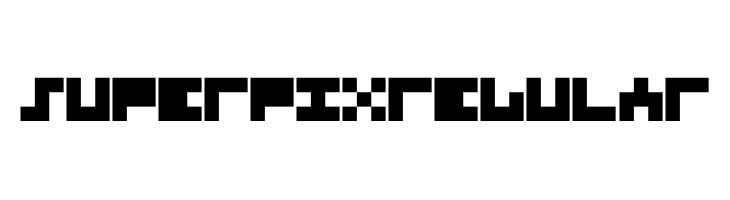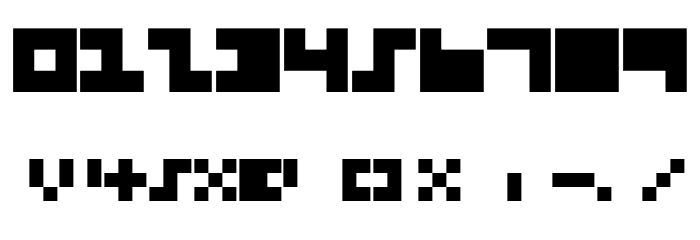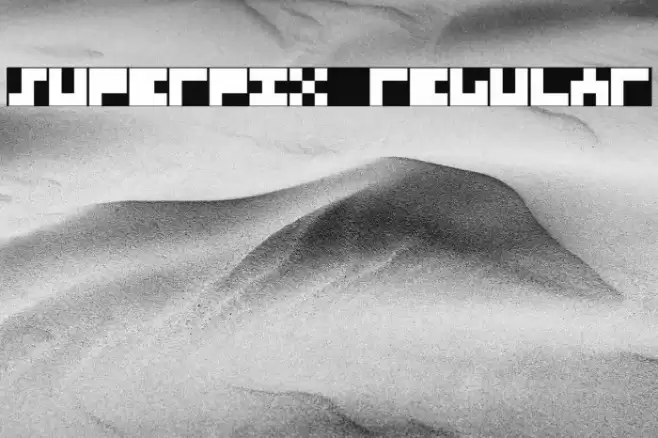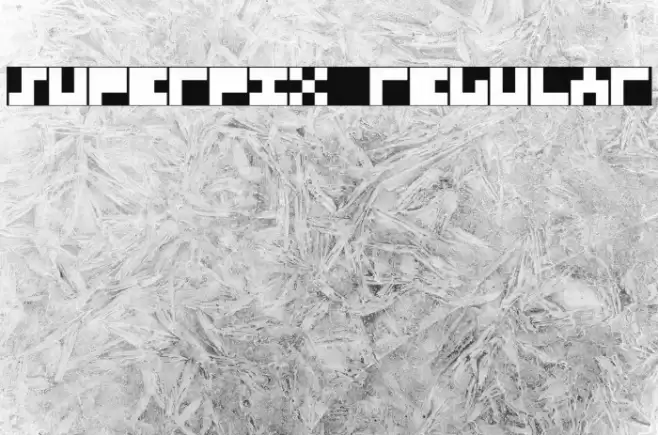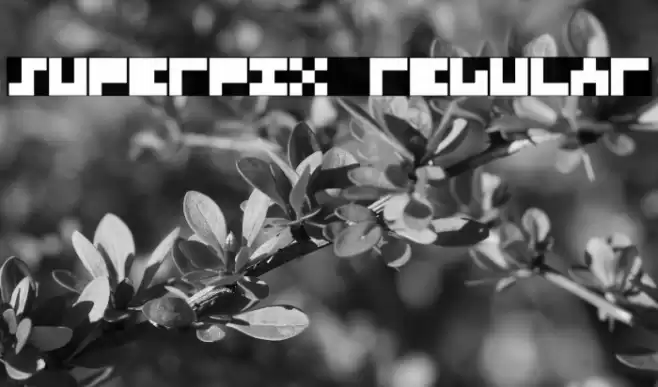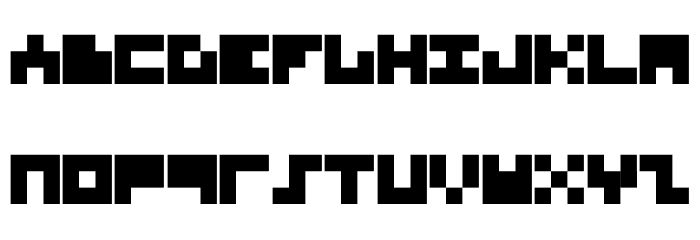
Superpix Regular Font
Superpix Regular Description
This font features a bold, pixelated design reminiscent of classic 8-bit video games. Each character is constructed with a blocky, geometric style, giving it a distinctly digital and retro appearance. The uniformity in height and width across all characters creates a cohesive and structured look, while the sharp edges and corners emphasize its digital roots. The font is highly legible at larger sizes, making it ideal for attention-grabbing headlines or titles. Its unique style is both nostalgic and modern, appealing to those who appreciate vintage gaming aesthetics.
| Overall Style | Vintage |
| Use Case | Headlines, Logos |
| Proposed Projects | Ideal for video game designs, retro-themed posters, digital art projects, and tech-related branding. |